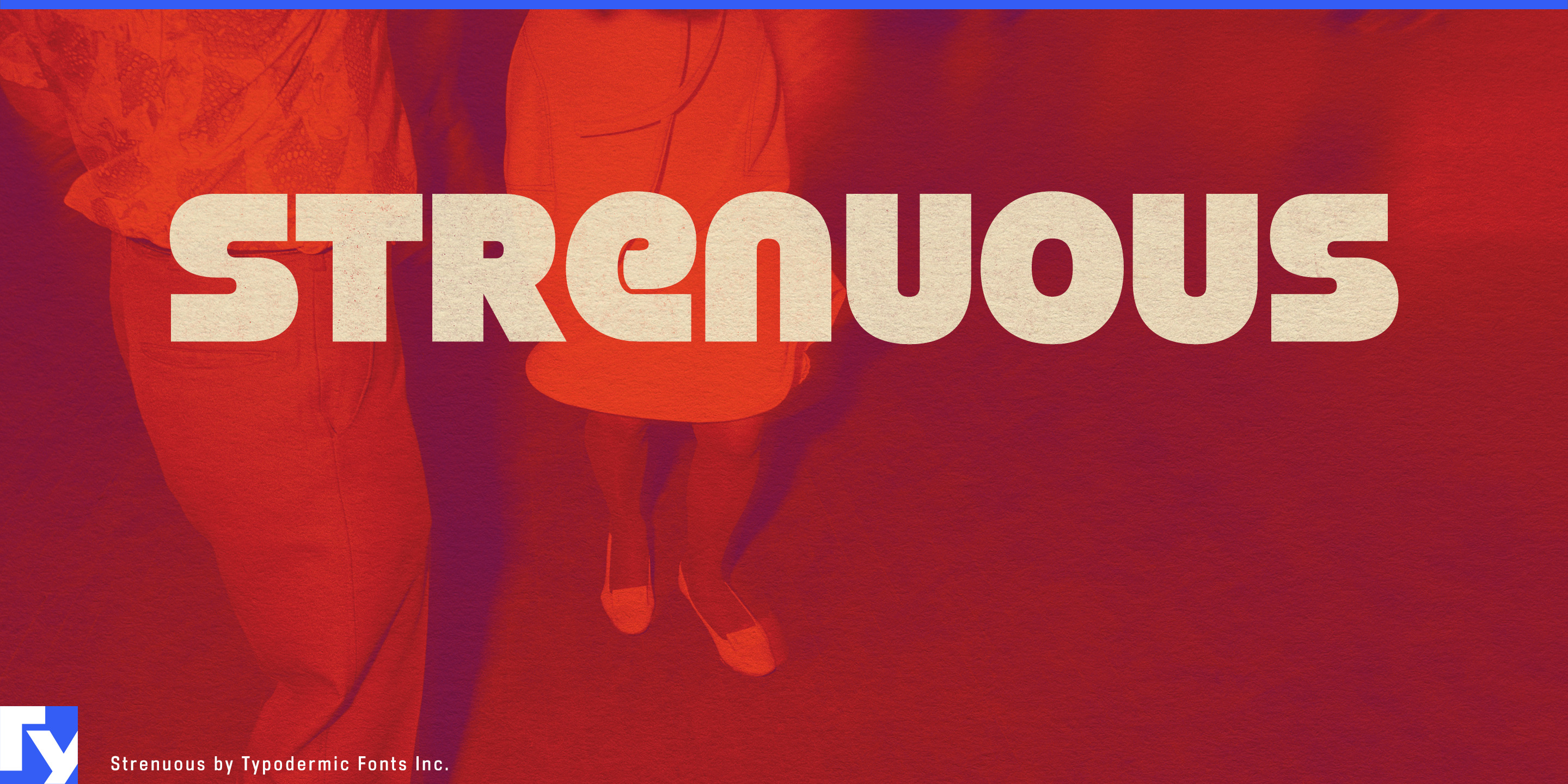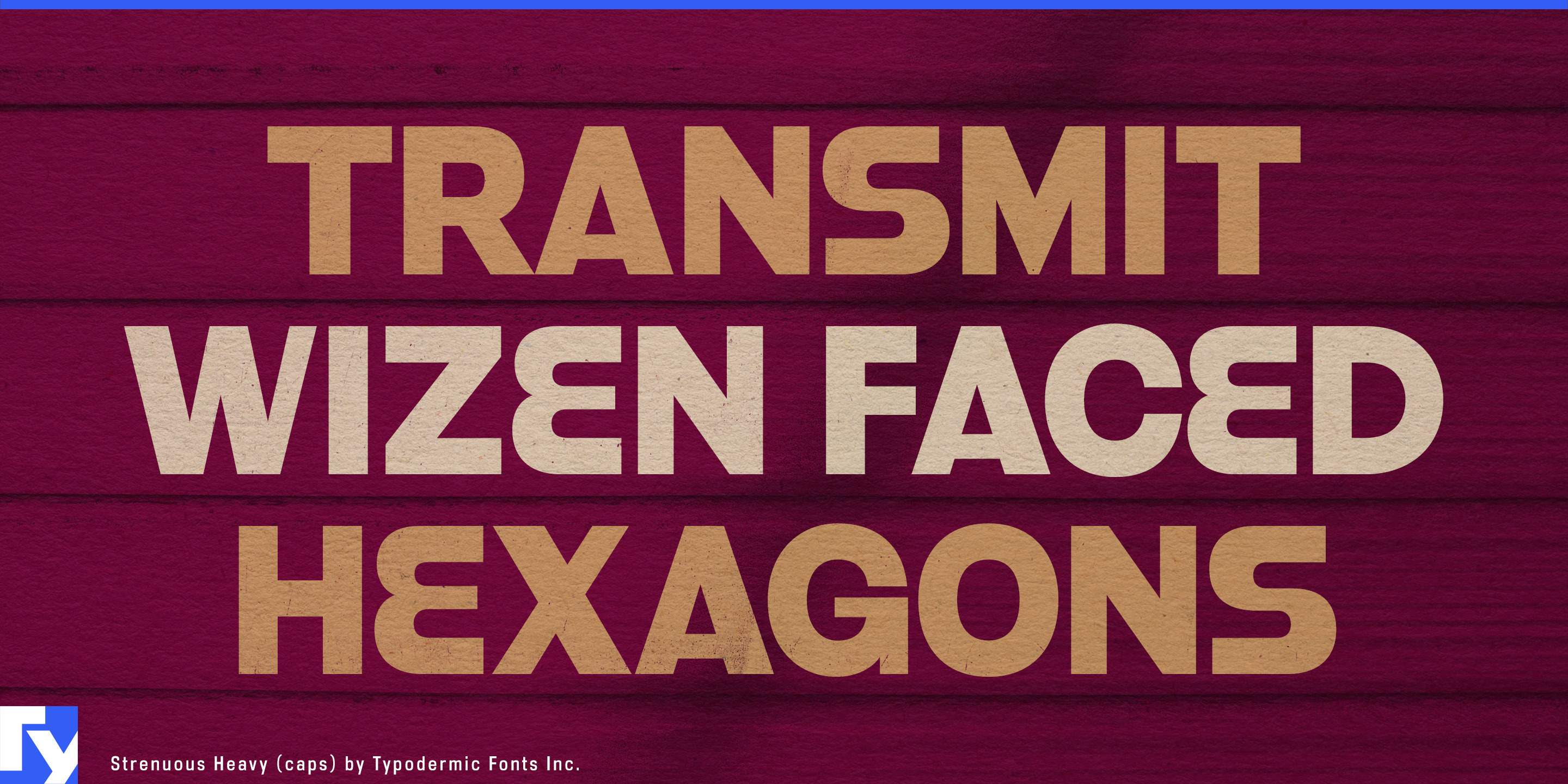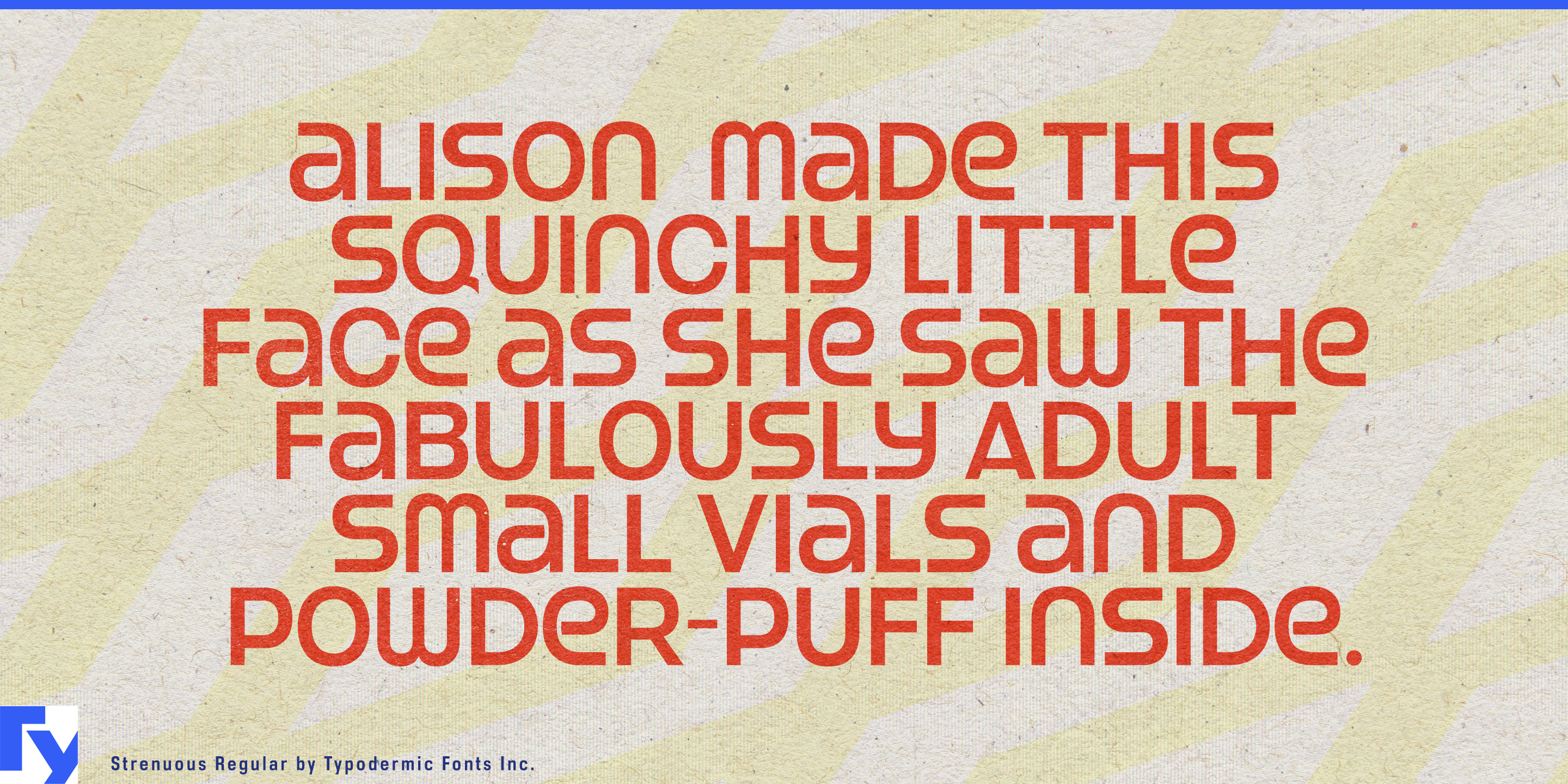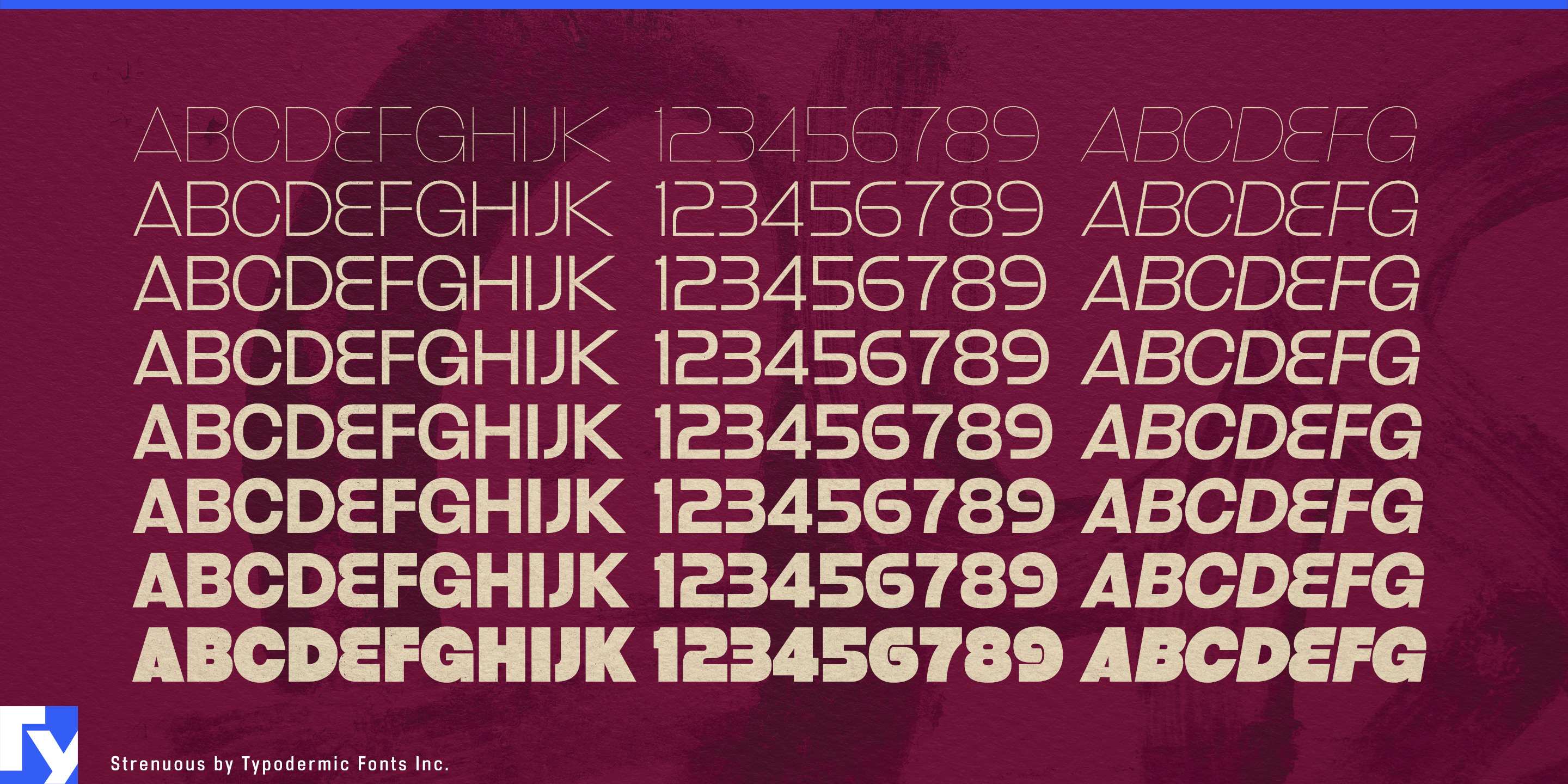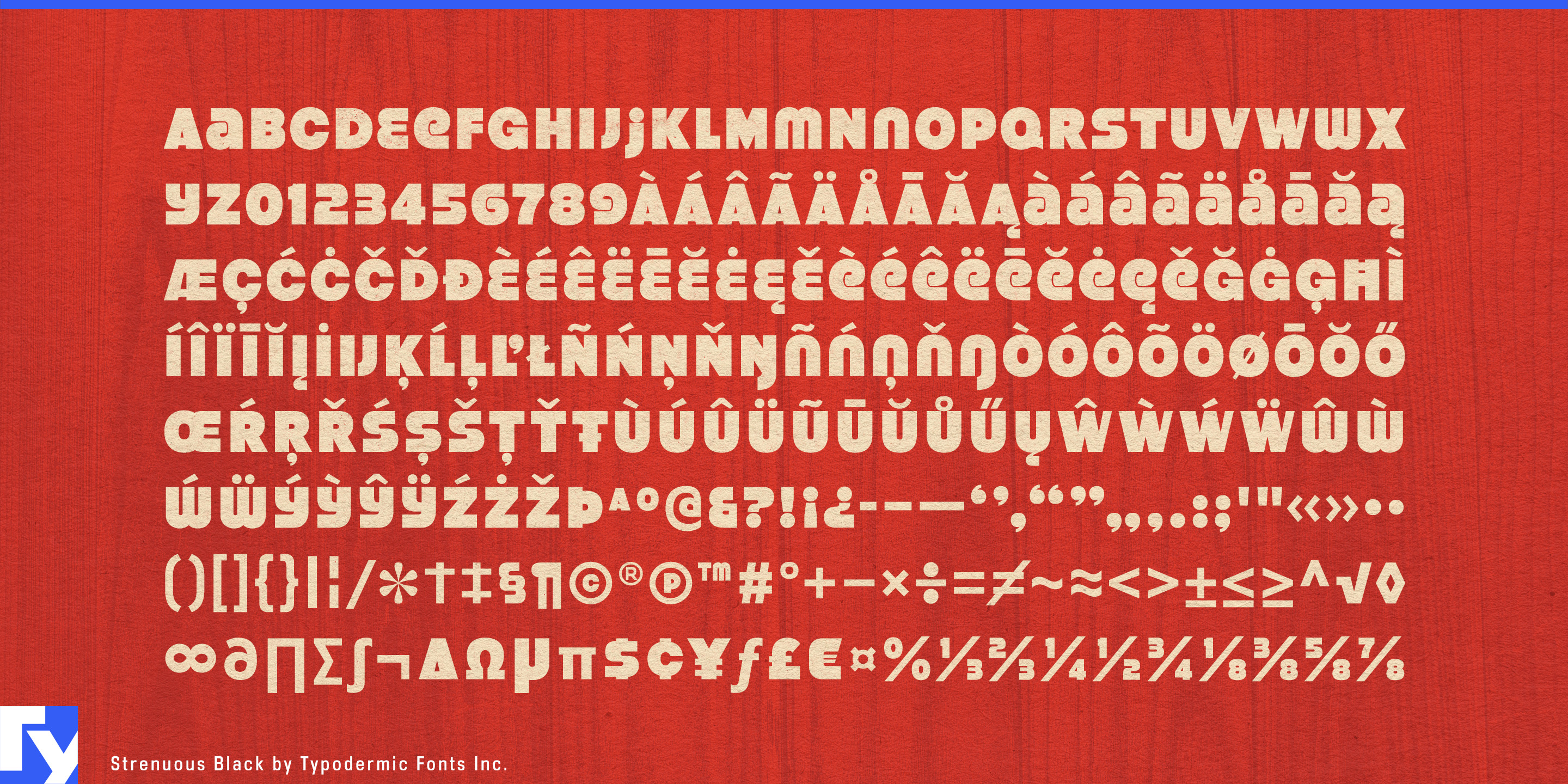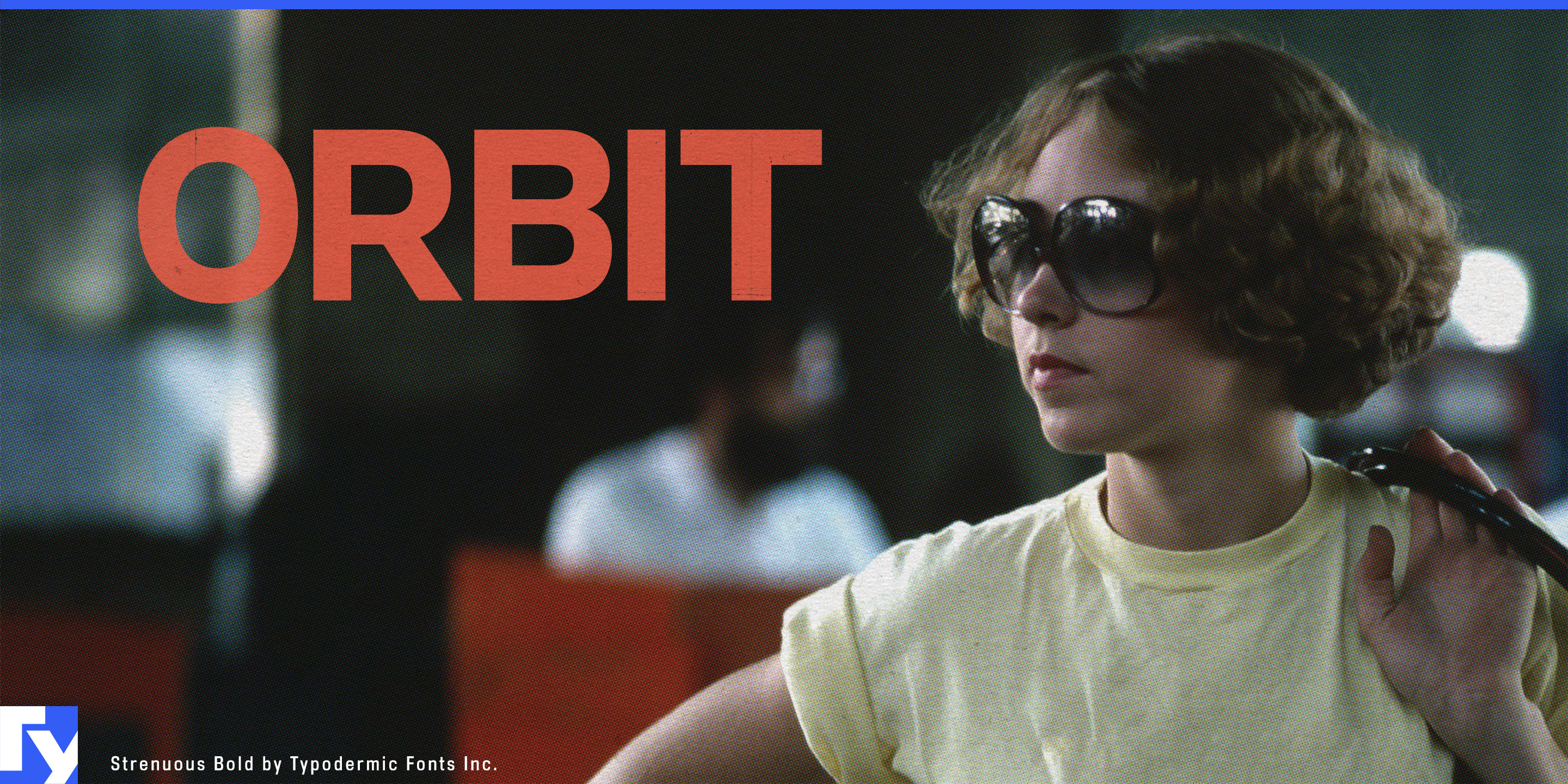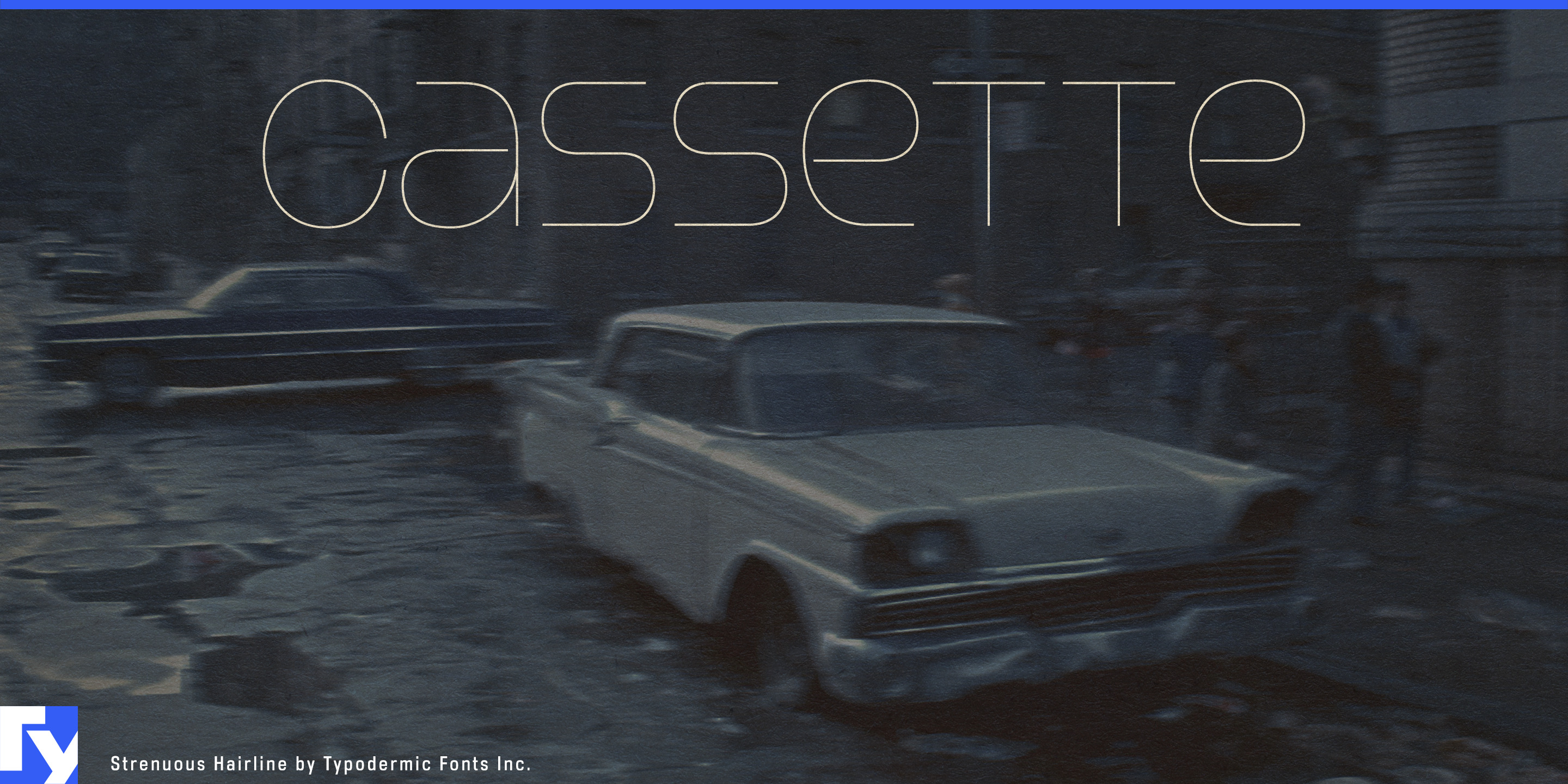
Strenuous
A 1970s display face can make one spectacular title. The harder problem is keeping that same period language alive when the project expands into episode cards, product names, venue graphics, campaign headlines and secondary information. Strenuous turns a highly specific retro voice into a full display system.
The design began with lettering from the 1974 film Black Eye and developed into a unicase structure built from uppercase- and lowercase-derived forms sharing a common height. Alternate forms let prominent words be tuned for shape while preserving the compact unicase rhythm.
Eight weights from Hairline through Black, each with an italic, give Strenuous far more range than a typical one-style retro face. Hairline, Thin and Extra-Light can create sleek display typography; middle weights handle secondary copy; Heavy and Black restore the dense cinematic force of the original idea. Separate 3D and Cast styles provide more specialized headline treatments.
Period entertainment is a natural fit. Streaming series, films and games set around 1970s crime, neo-noir, urban action or nightlife need more than one opening title. Strenuous can continue into episode cards, character names, dates, locations, chapter graphics and promotional material while preserving a coherent period vocabulary.
Fashion and eyewear campaigns reveal another side of the family. Archive-inspired collections, oversized eyewear, footwear capsules and resort fashion can use the lighter weights for collection names, lookbook divisions and retail-window typography, then shift into heavier styles for campaign titles and product drops.
Boutique hotels, listening bars and cocktail lounges built around 1970s interiors face a similar system problem. Venue names, room or bar names, event graphics and menu headings can share one period atmosphere without relying on the same chunky treatment everywhere.
Funk, soul, jazz-rock and disco reissues, anniversary box sets, label retrospectives and music documentaries can use Strenuous for changing artist names, release titles and years. Turntables, speakers, headphones and amplifiers that reference 1970s industrial design can carry the same visual language into model names, special editions and launch graphics.
Strenuous is strongest when the project needs more than a retro moment. Its weight range, italics and unicase alternates let a distinctive 1970s voice continue through an entire campaign rather than disappearing after the hero title.